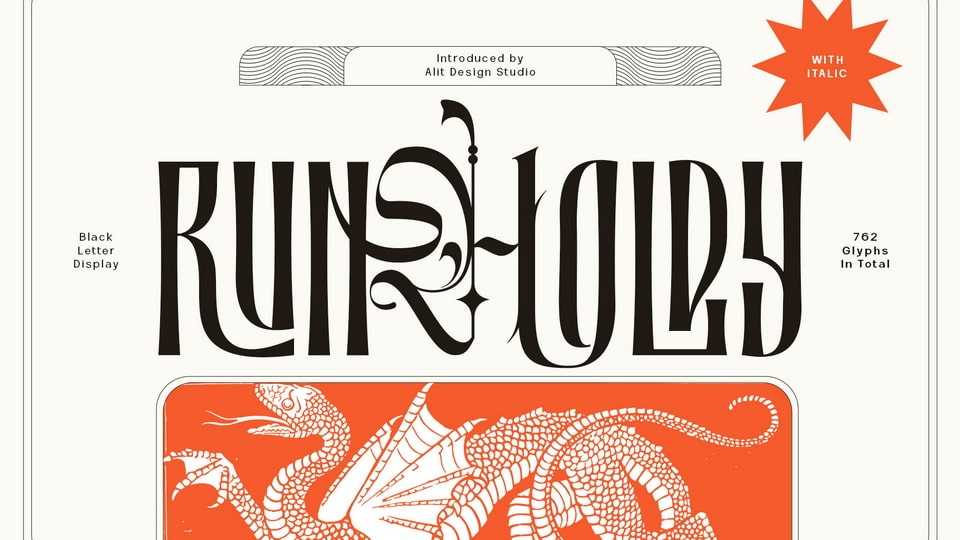
Download Runholdy font, a unique typeface designed with a concept of dark beauty and modern style. Runholdy font combines elements of both modern sans serif and blackletter styles, creating a striking and distinctive appearance